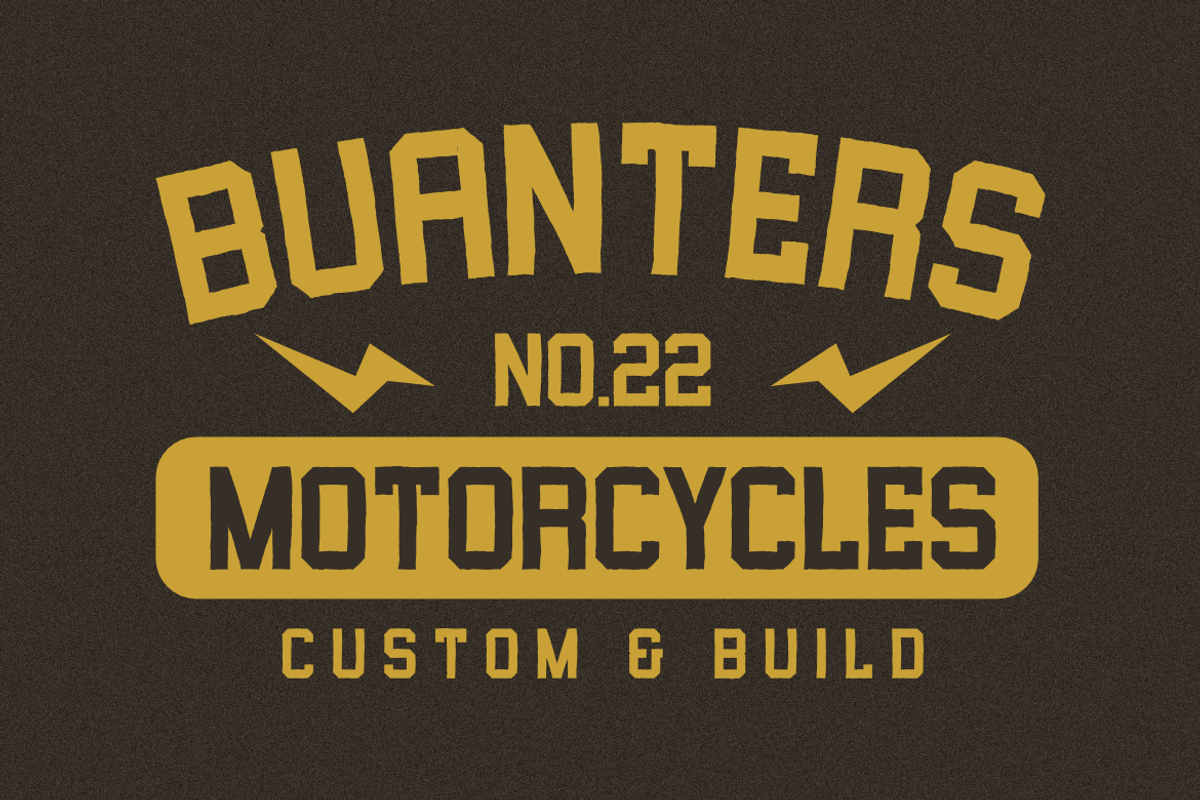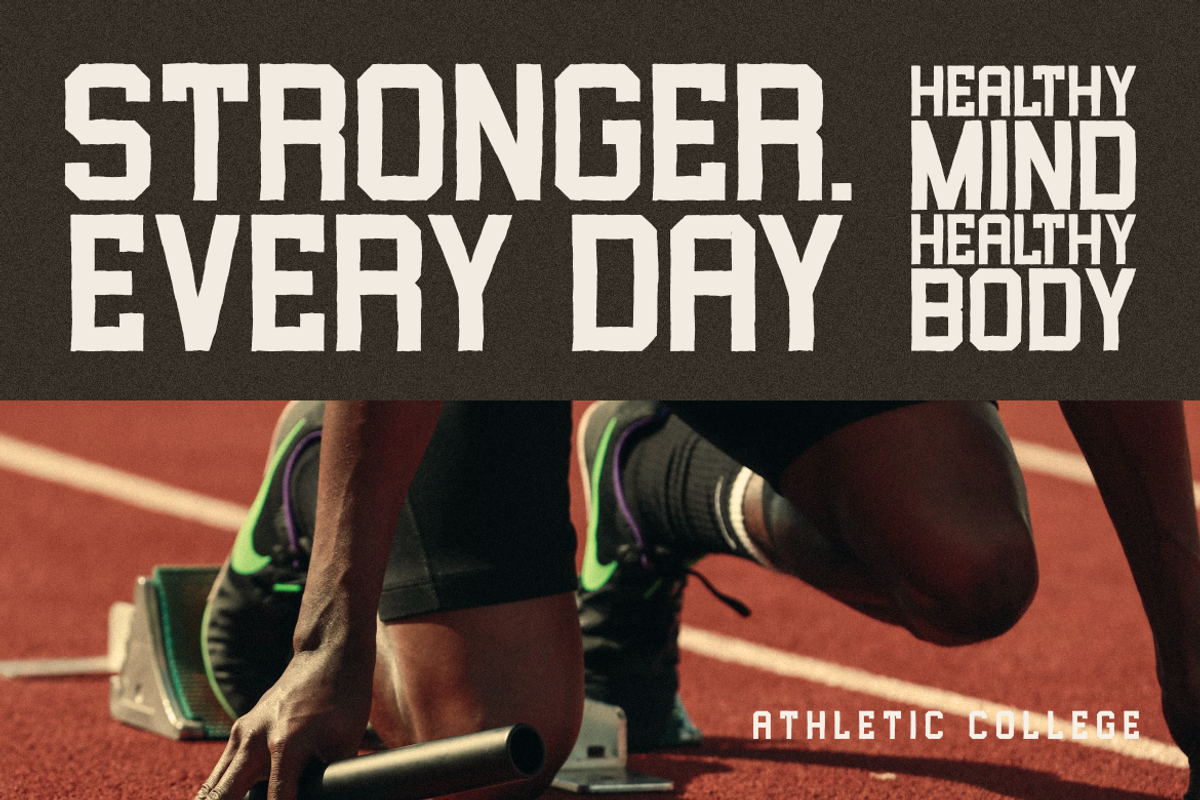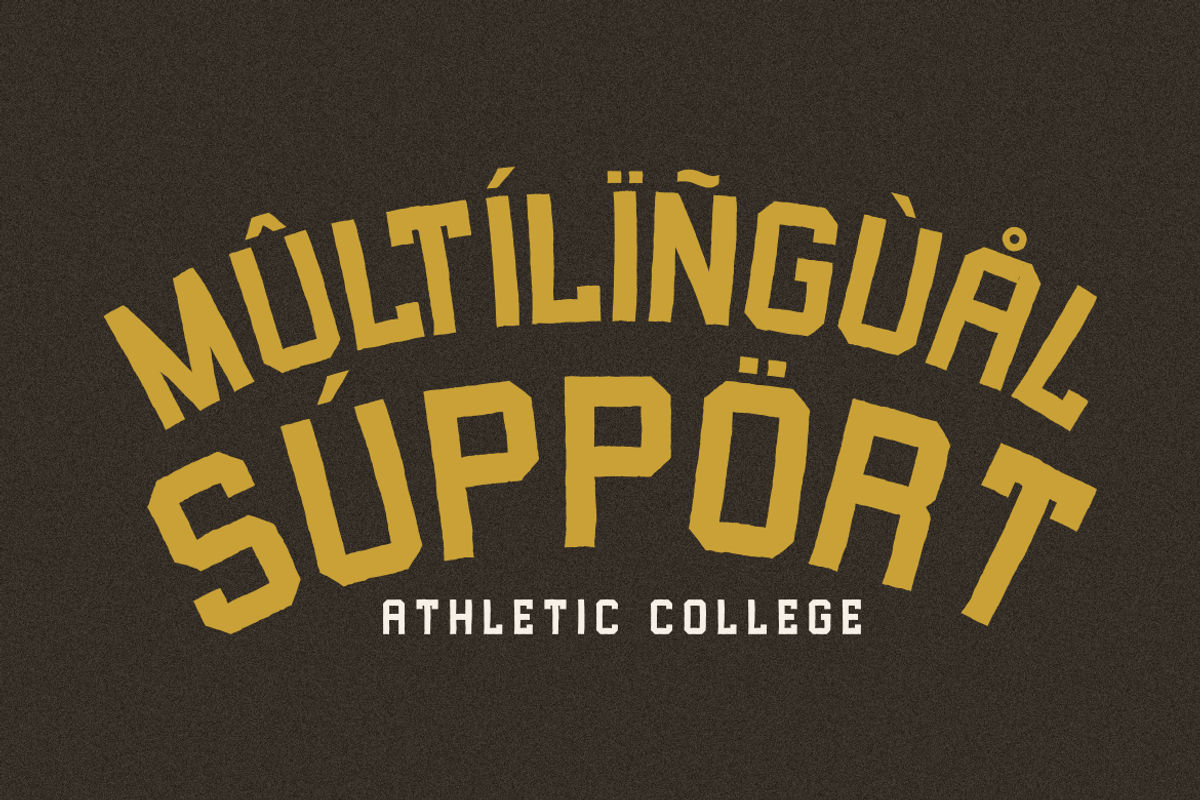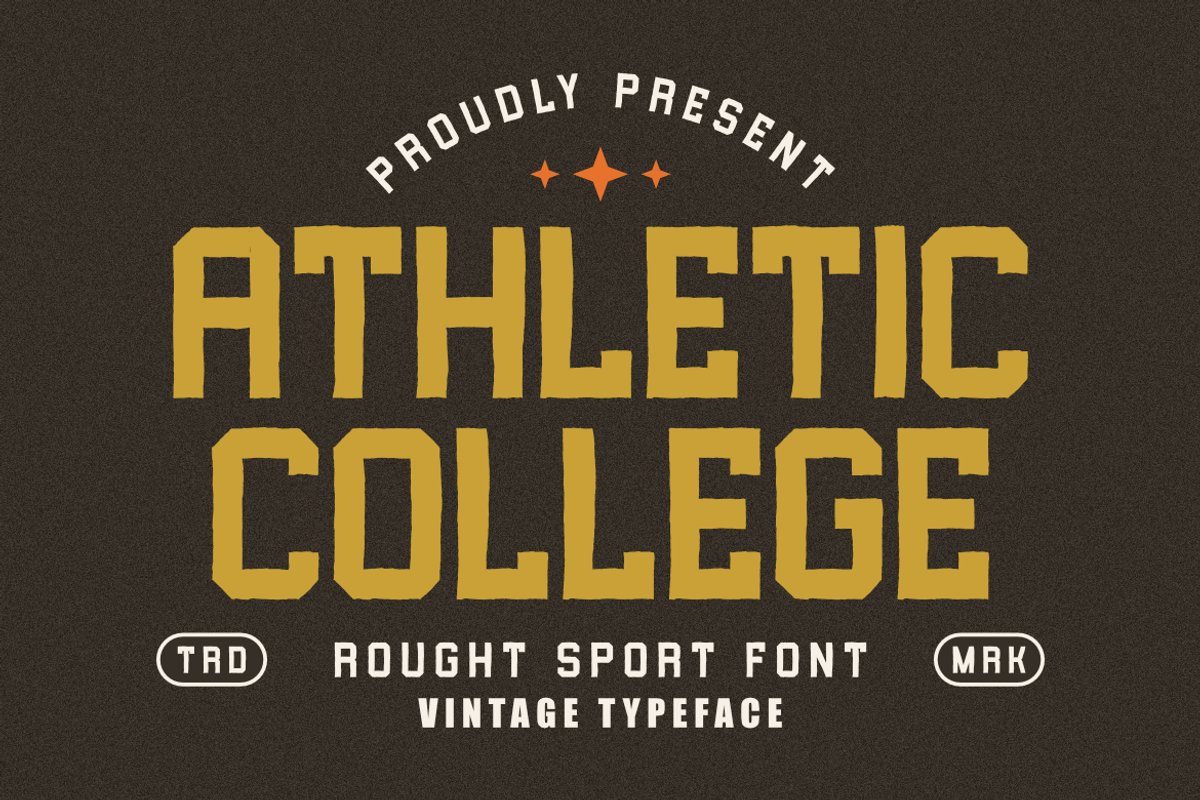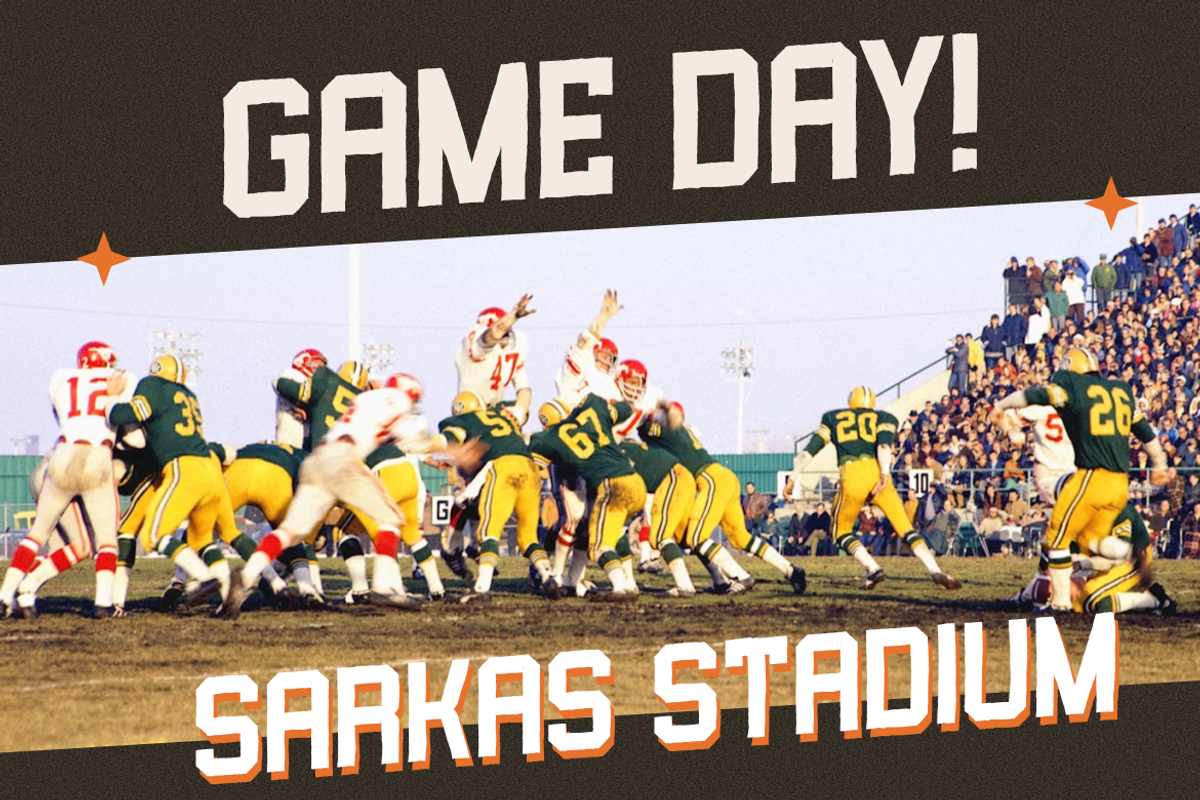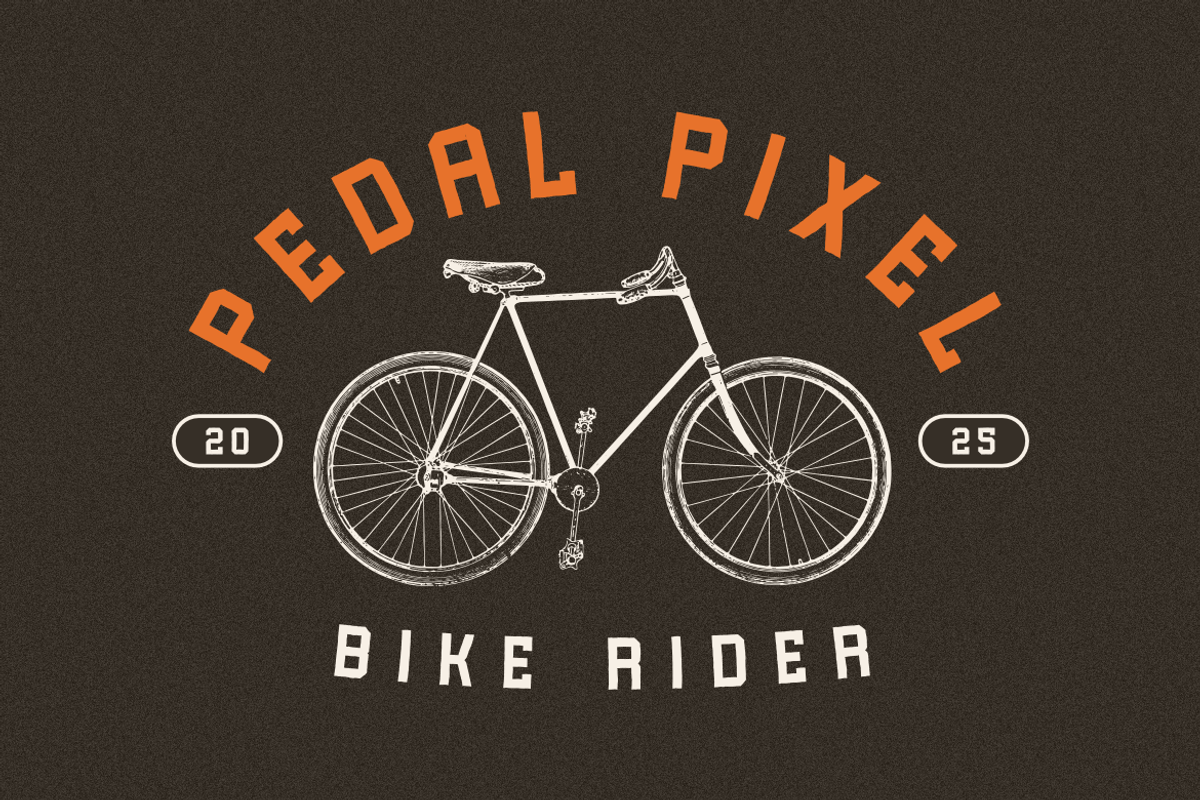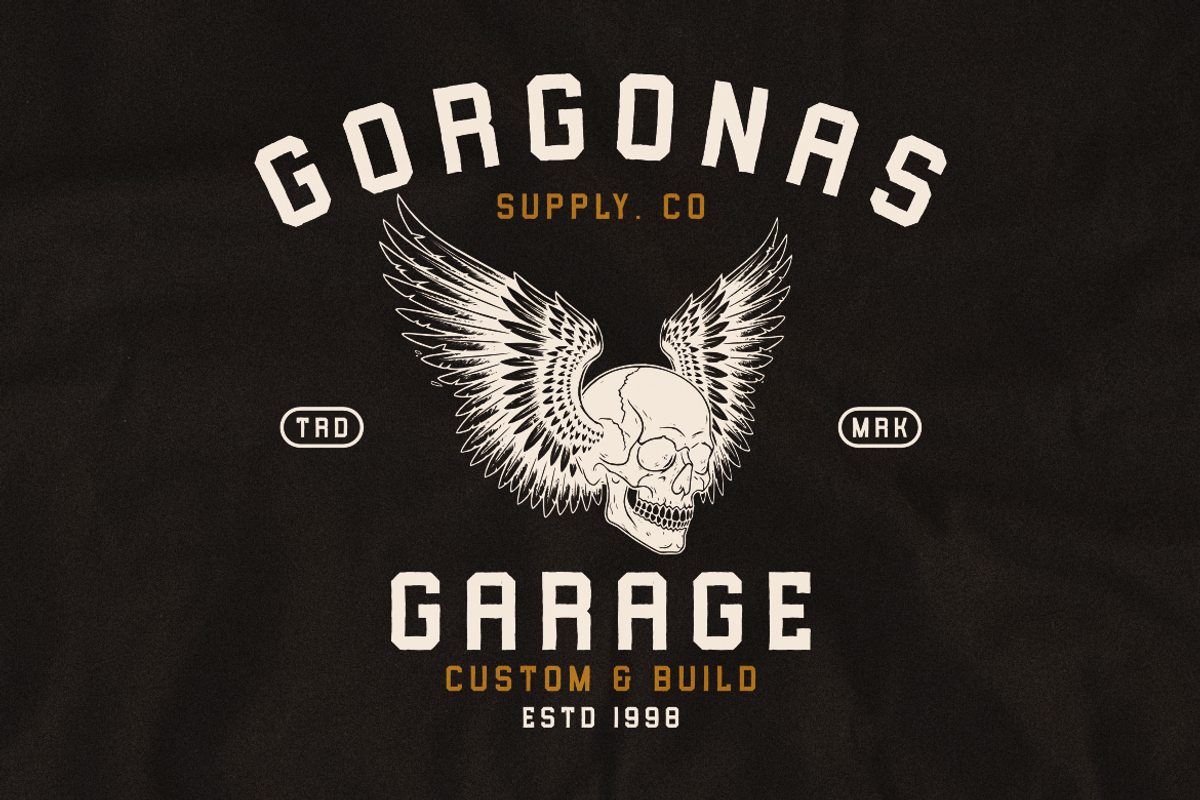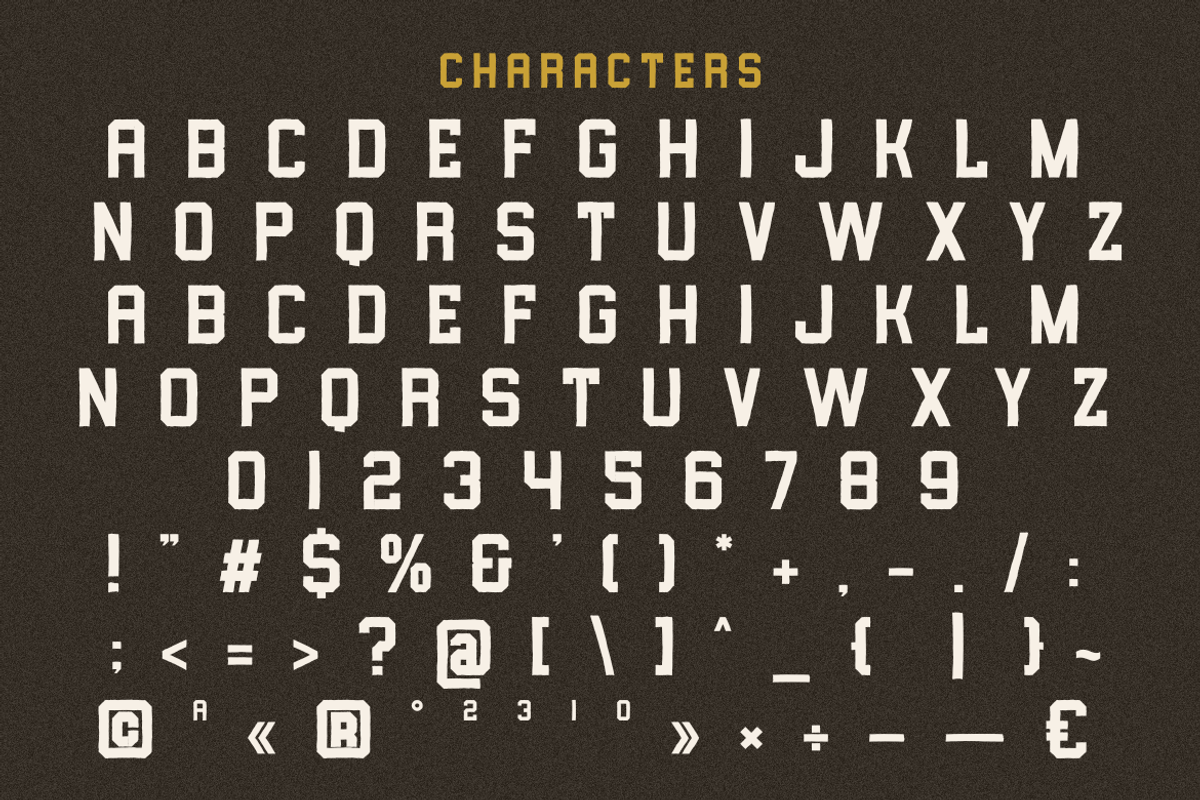
Athletic College - Vintage Sport
Athletic College is a robust rough sport font with a distinct vintage aesthetic. This typeface brings a powerful and energetic feel, reminiscent of classic athletic department logos and collegiate branding. Its sturdy, weathered texture and bold presence make it an excellent choice for sports-related designs, team merchandise, event posters, retro-inspired logos, and any project requiring a strong, authentic vintage sport vibe. Infuse your designs with the competitive spirit and timeless character of Athletic College.